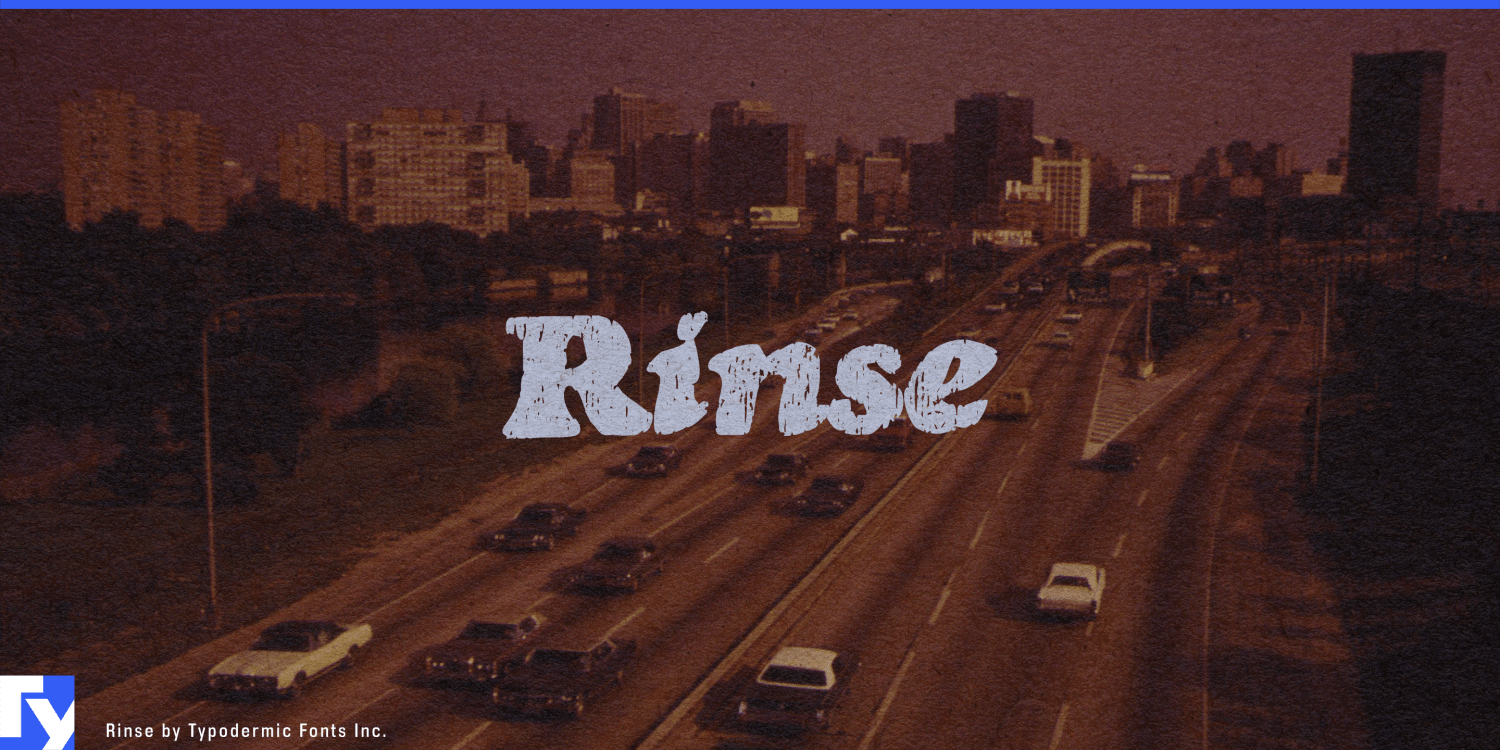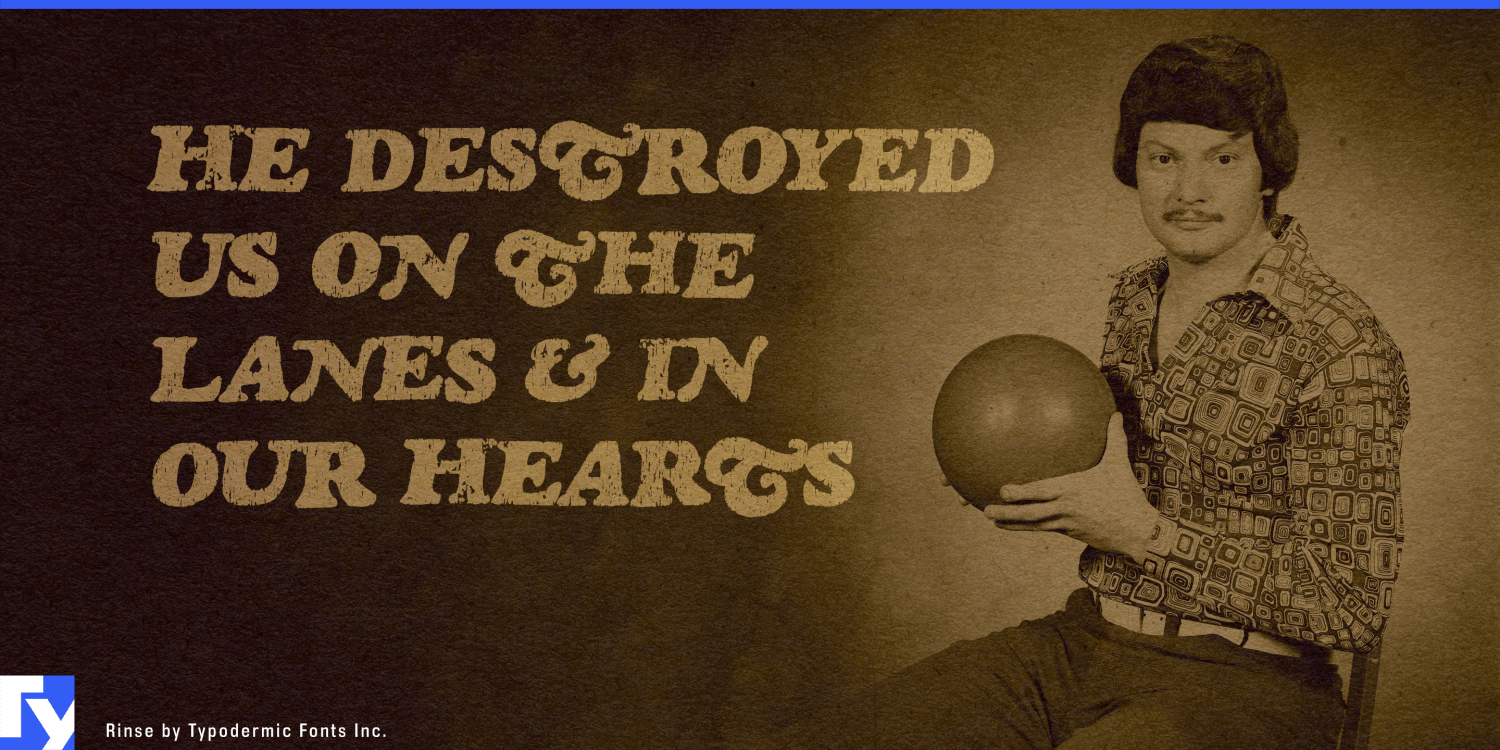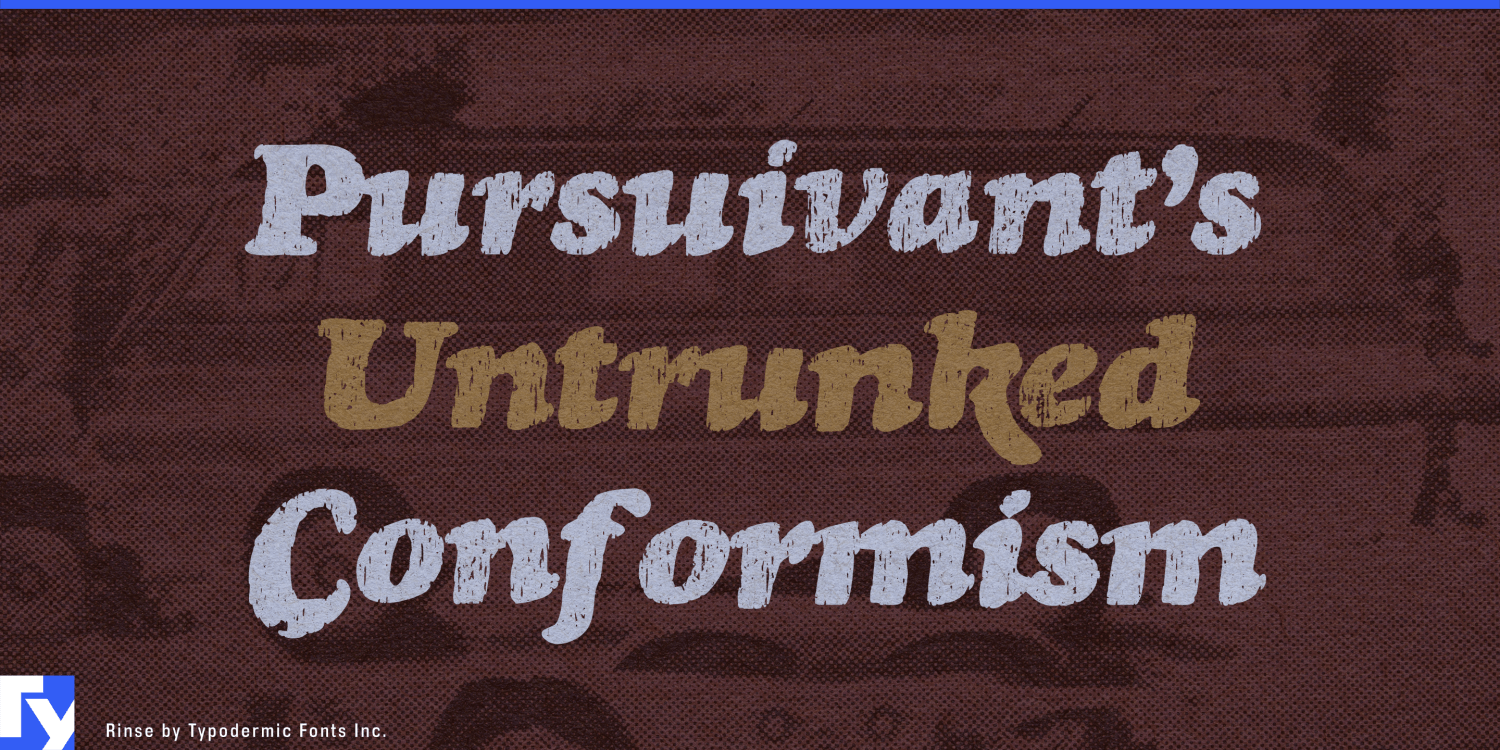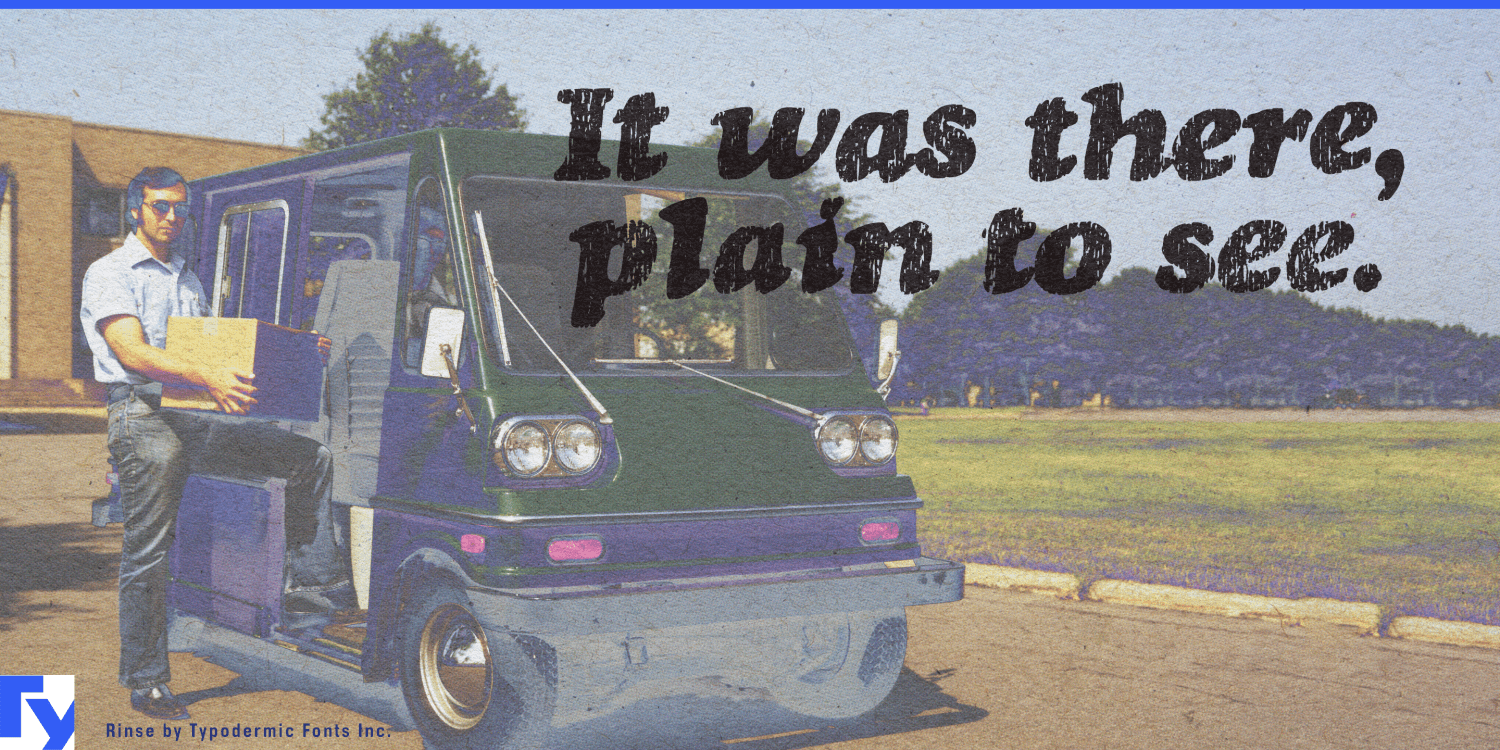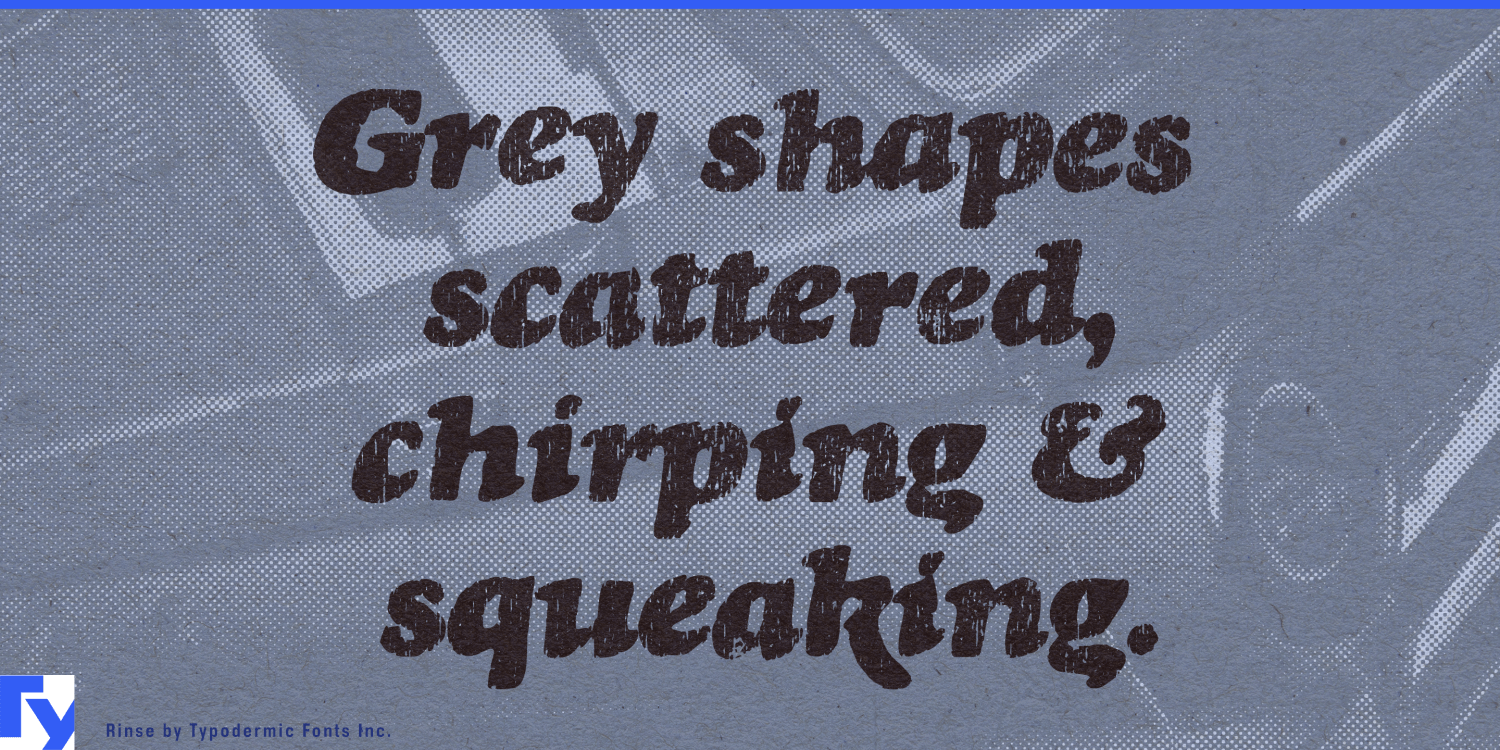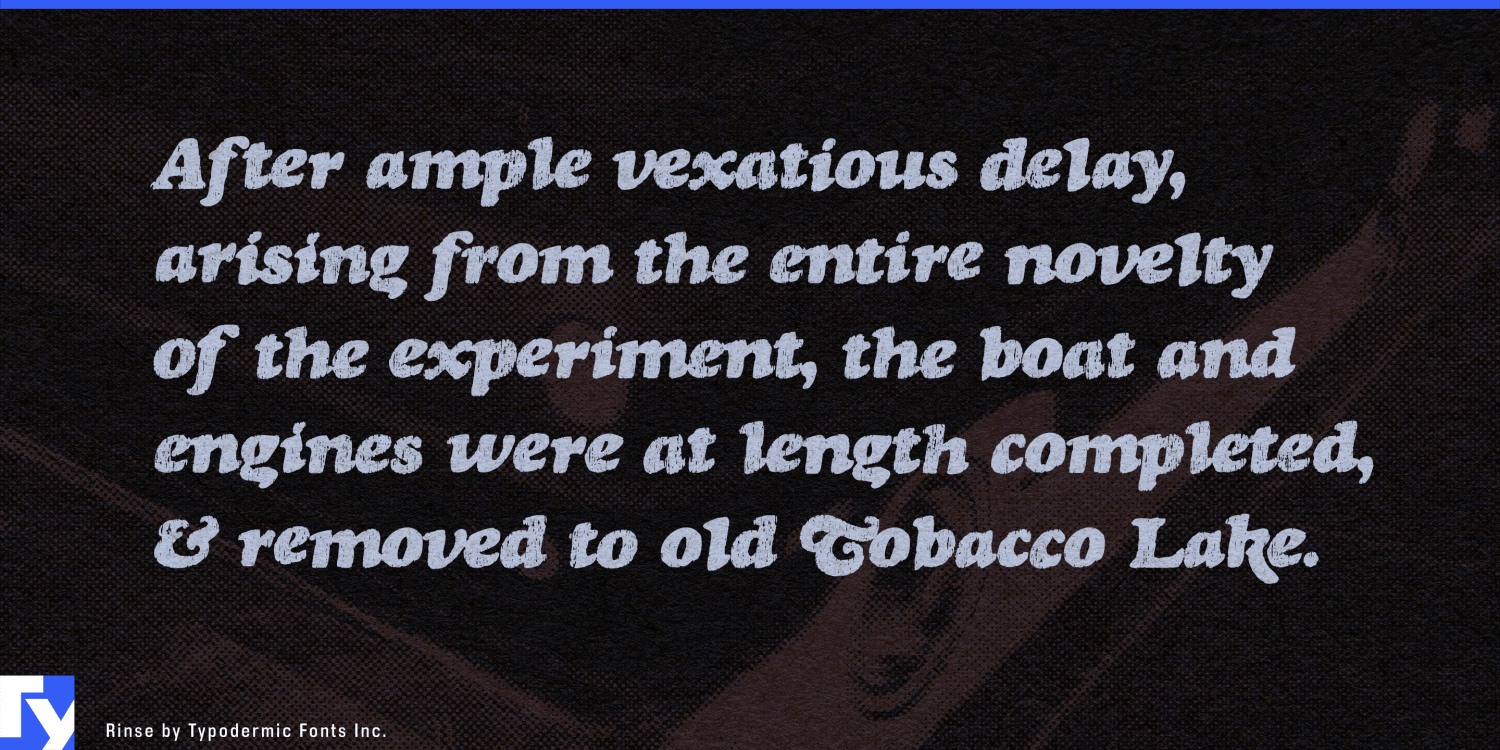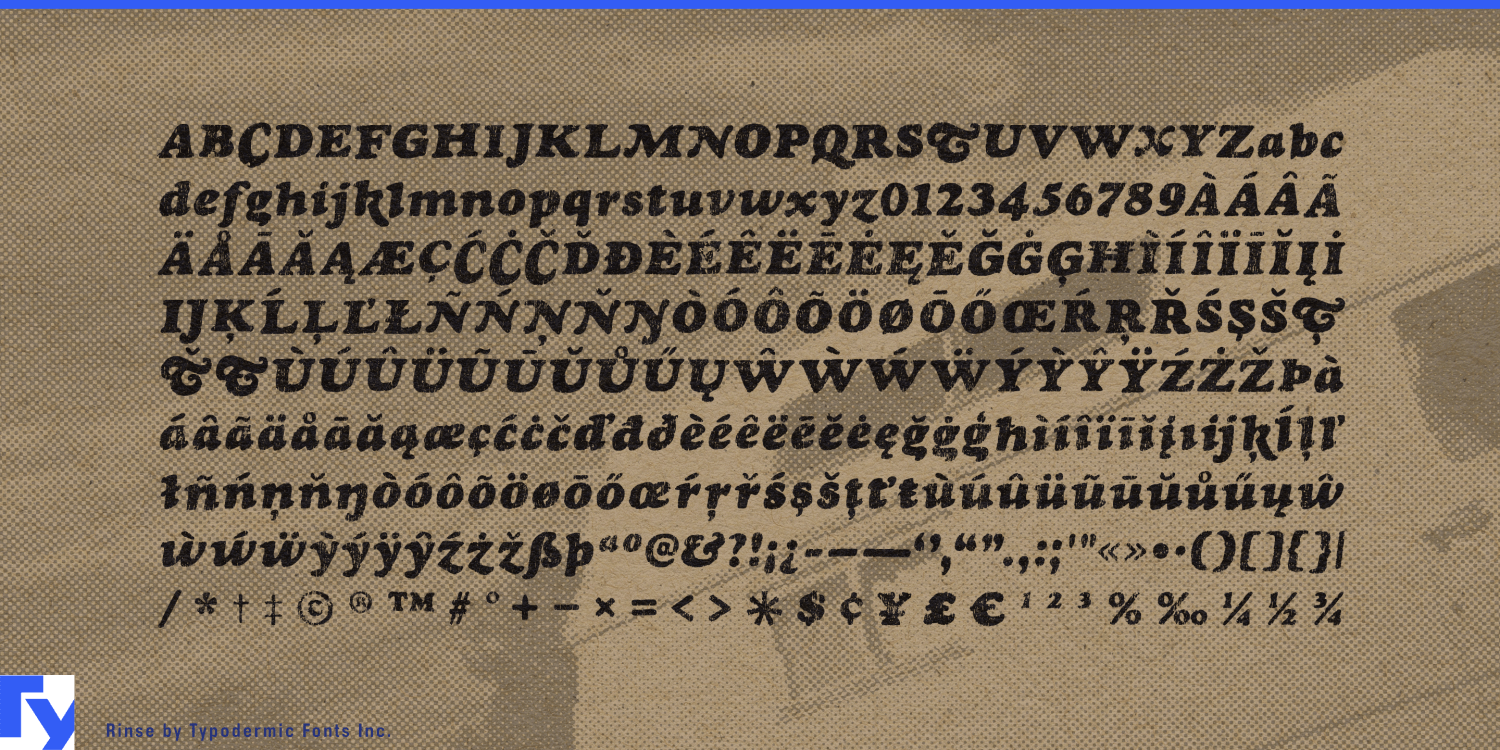
Rinse
Font Family by Typodermic
Rinse began with scans from an old metal-type catalogue, reconstructed as a working version of Goudy Heavyface Italic. Its worn surface was developed separately: ink rolled across fabric, scanned, and incorporated through bitmap layering. After autotracing and manual cleanup, the textured outlines were registered over the working font to preserve its original scale and alignment. The irregularity is physical; the typography underneath remains controlled.
Heavy oldstyle forms and an emphatic italic lean give Rinse the flavour of 1970s display lettering. The fabric treatment makes those forms resemble garment graphics softened by years of wear and washing. Ink gathers, thins, and breaks according to the material beneath it, avoiding the repetition of a digitally scattered distress pattern. The name comes from that same world of T-shirts and laundry.
Vintage garment graphics are its natural territory: band shirts, bowling-league uniforms, summer-camp souvenirs, motorcycle-rally apparel, local-team merchandise, and promotional tees for vanished regional businesses. A trucking company, repair garage, record store, or roadside attraction can look as though it survives only on something discovered in a thrift shop. The broad, slanted letters are built for names, slogans, and stacked lines that occupy the garment rather than sitting politely upon it.
Rinse carries that material history into roadside food and drink. Smokehouse signs, barbecue-sauce labels, dry-rub tins, burger wrappers, root-beer packaging, taproom shirts, and bowling-alley menus benefit from lettering that already seems to have passed through kitchens, delivery trucks, and sun-faded windows. Its oldstyle foundation keeps the result connected to familiar commercial lettering without turning it into a spotless retro reproduction.
The texture also works naturally with old photographs. In documentary titles, local-history exhibitions, found-photo books, and reissue packaging, newly added lettering can appear to share the image’s paper grain, fading, and imperfect reproduction. Rinse works best in short display copy such as names, slogans, product varieties, compact headlines, and titles. Letter-pair ligatures introduce controlled variations into recurring combinations, reducing the mechanical repetition that can reveal a digital source.